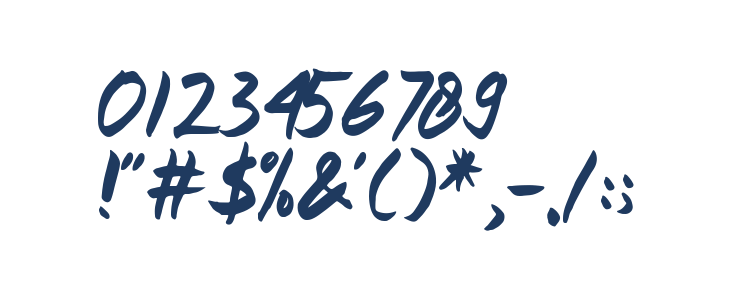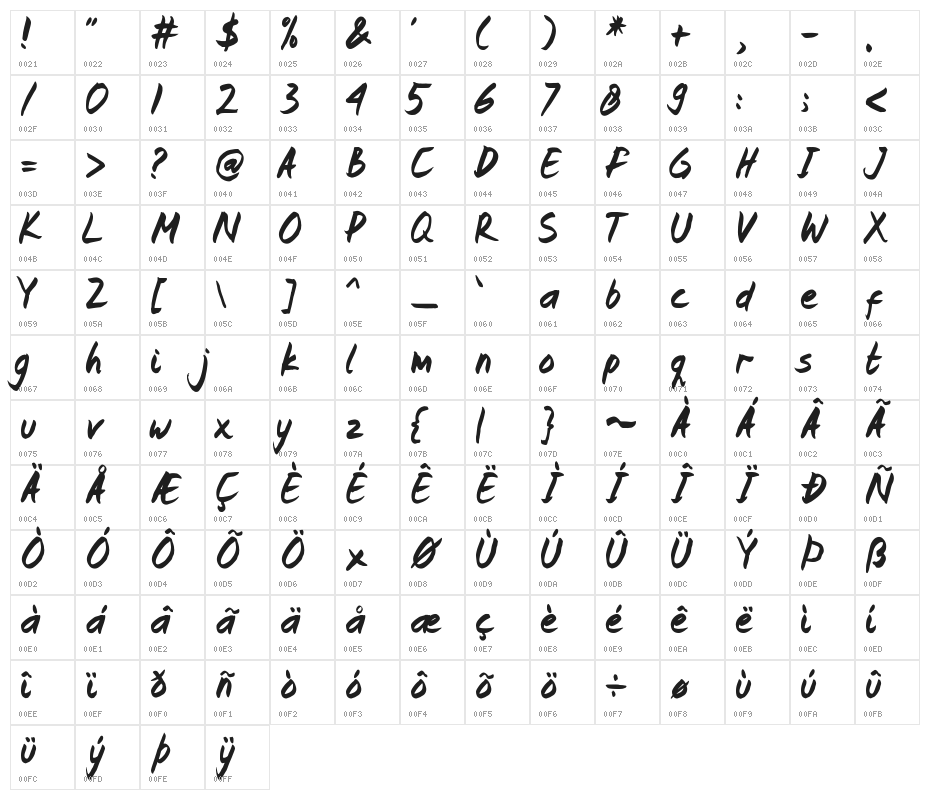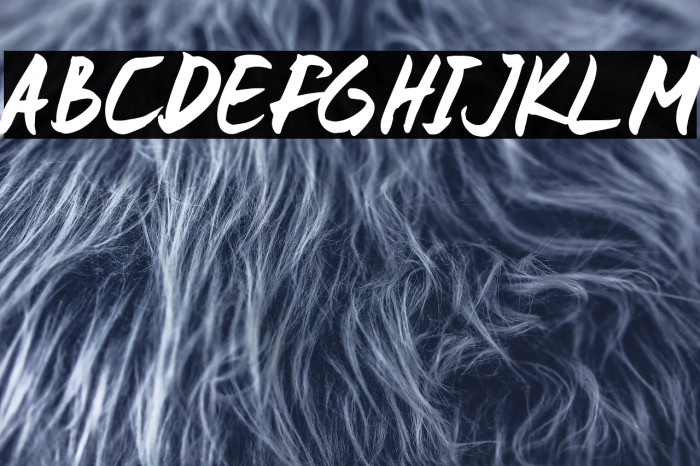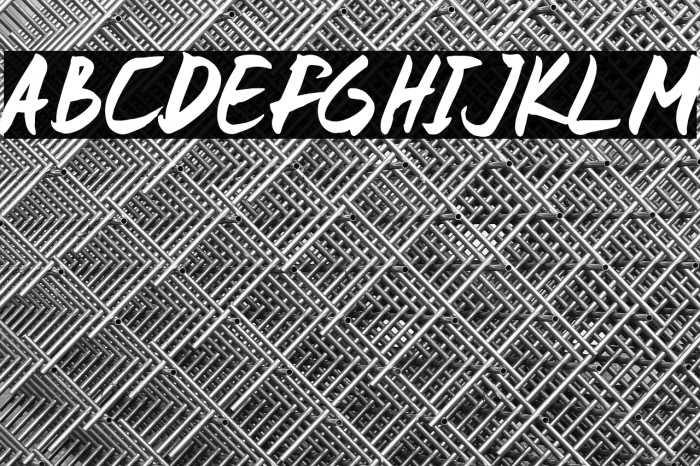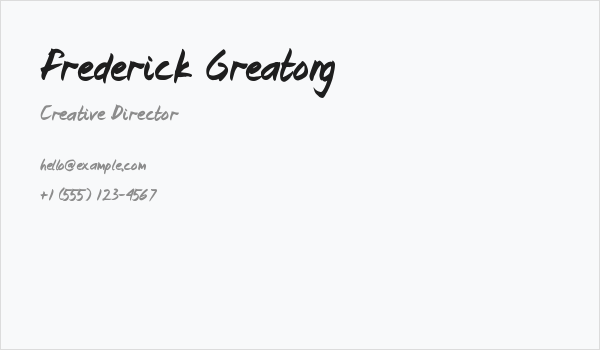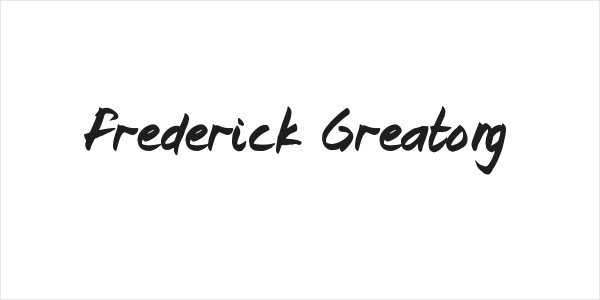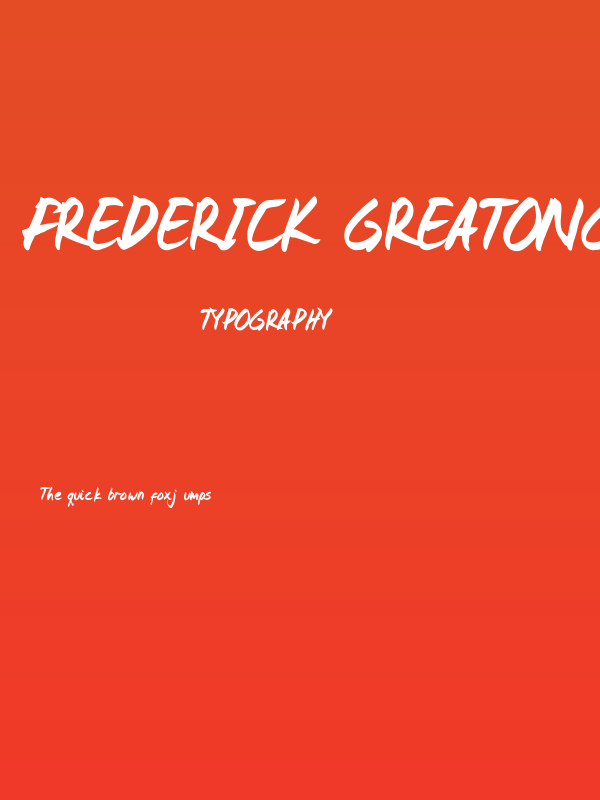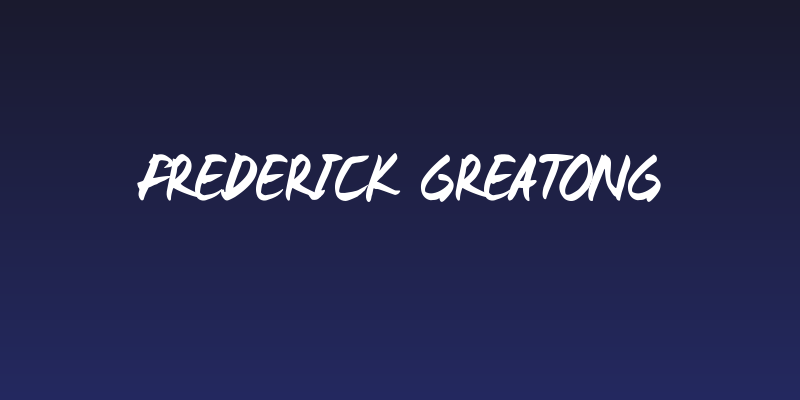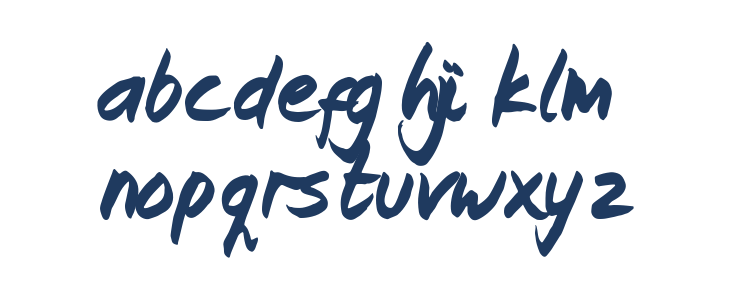
Frederick Greatong Font
Frederick Greatong Description
This font exudes a dynamic and energetic feel, characterized by its bold, handwritten style. The strokes are thick and expressive, giving each character a sense of movement and personality. The letters are slightly slanted, adding to the casual and informal aesthetic. The uppercase and lowercase letters maintain a consistent style, with rounded edges and a playful flair. Numbers and special characters follow the same design, ensuring a cohesive look across all elements. This font is perfect for projects that require a personal touch or a creative, artistic vibe.